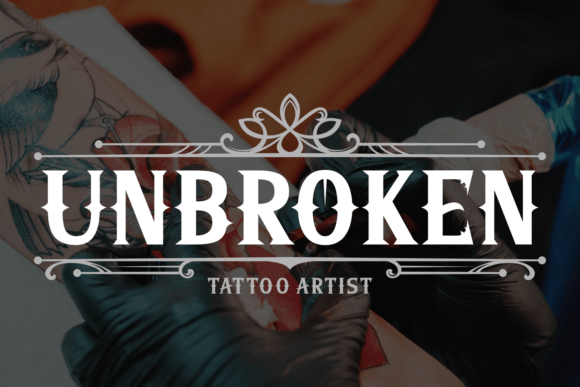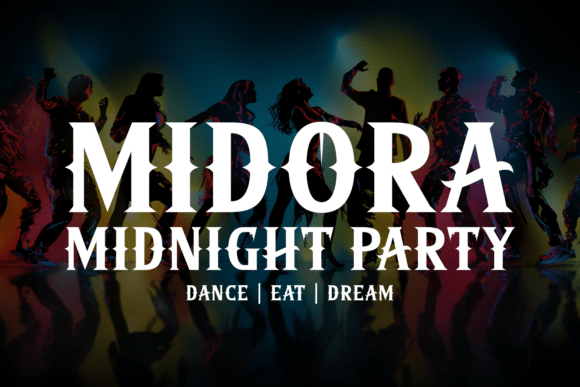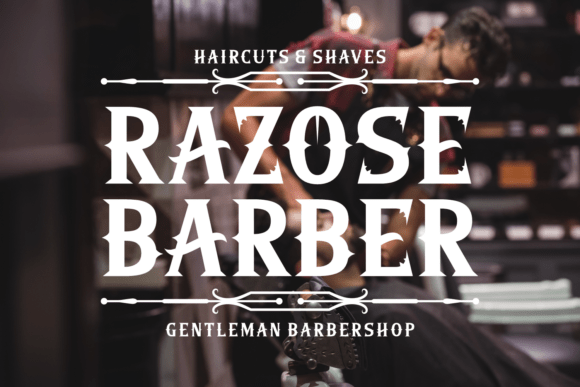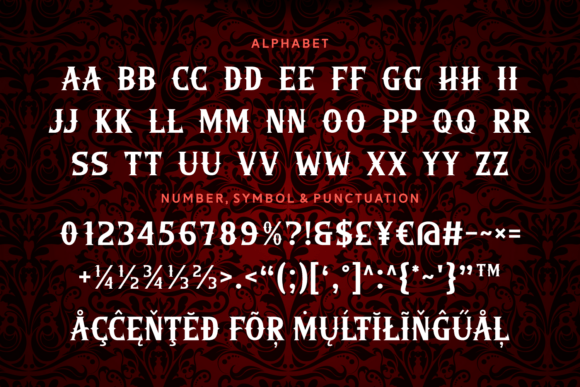
A New Font for the Shadows: Introducing Blood Hollow
As the leaves start to change and the nights grow darker, the creative spark within us begins to flicker to life. For designers and writers, the start of autumn is the perfect time to tap into the eerie atmosphere and unleash our inner storytellers. And what better way to do that than with the right font?
Enter Blood Hollow Font, a stunning new blackletter font that’s tailor-made for the horror themes and gothic aesthetics that define this spooky season. With its sharp, decorative cutouts and vintage flair, Blood Hollow Font is the perfect choice for creating haunting Halloween designs, vampire stories, and other macabre masterpieces. Whether you’re a seasoned designer or just starting out, this versatile font is a valuable addition to any creative toolkit.
Blood Hollow Font Key Features
- Unique Characteristics: Distinctive gothic-inspired design with intricate details and bold lines, perfect for horror and thriller genres
Blood Hollow Font Review
I recently had the chance to work with the Blood Hollow Font, and I have to say it’s a bold and striking choice for any design project.
- Unique aesthetic: The Blood Hollow Font has a distinct, macabre feel to it that’s perfect for projects that need a touch of darkness or mystery.
- Highly customizable: The font comes with a range of customization options, from adjusting the stroke width to changing the color palette.
- Effective for headlines: The font’s bold, gothic letters make it an excellent choice for grabbing attention and setting the tone for a project.
- May be overwhelming: The font’s bold aesthetic can be overwhelming if used extensively throughout a project, so be sure to use it sparingly.
- Limited legibility: At smaller font sizes, the letters can become difficult to read due to the intricate details and strokes.
- Not ideal for body text: Due to the font’s bold nature, it’s not the best choice for large blocks of text, such as body copy or paragraphs.
Overall, the Blood Hollow Font is a fantastic addition to any designer’s toolkit, but it’s essential to use it thoughtfully and in moderation to avoid overwhelming the viewer.
Here are some tips for getting the most out of the Blood Hollow Font:
- Use the font for titles, headings, and emphasis.
- Pair the font with other fonts for a unique look.
- Experiment with different font sizes and styles.
The Blood Hollow Font is commonly used for:
- Horror and thriller book covers.
- Dark and moody branding.
- Creepy and atmospheric invitations.